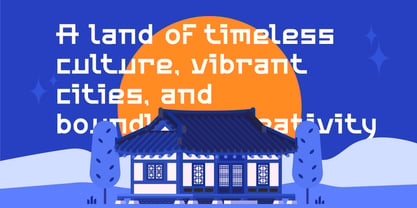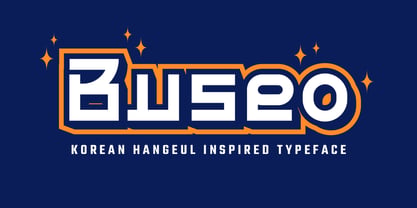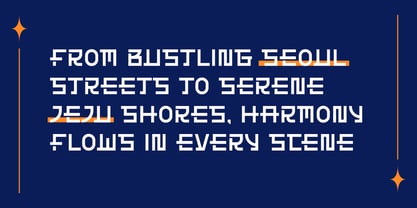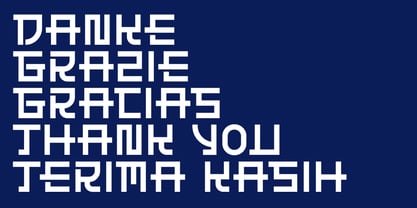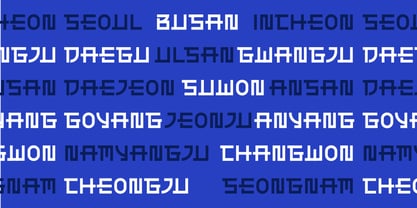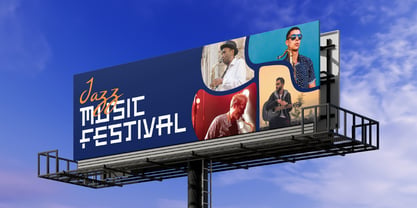
Buseo
by Habitype
The Buseo Font Family was designed by Fahrul Saputra and published by Habitype. Buseo contains 1 styles. More about this family
Buseo is a modern display font inspired by the clean, architectural forms and modular rhythm of Korean Hangul aesthetics. It features a bold, block-based geometric layout where letters are constructed with heavy, interlocking strokes that mirror the syllabic composition of East Asian typography.
The typeface seamlessly combines minimalist simplicity with a distinct graphic personality, making it an excellent fit for bold posters, street-style branding, K-culture projects, impactful headlines, or any contemporary design requiring a fresh, cultural edge.
Designers: Fahrul Saputra
Foundry: Habitype